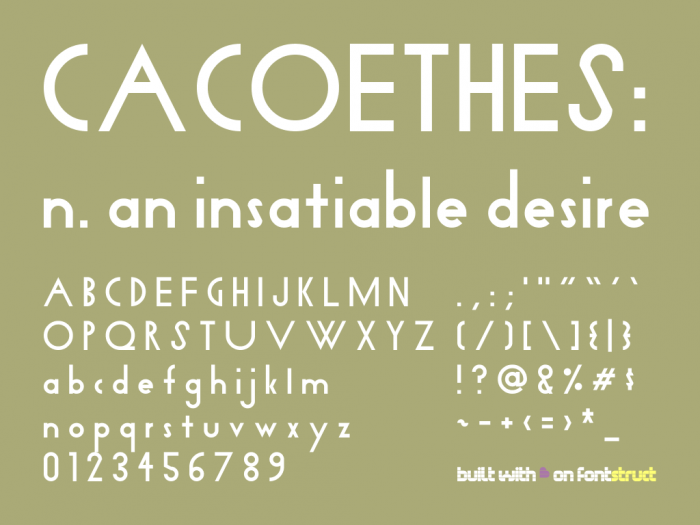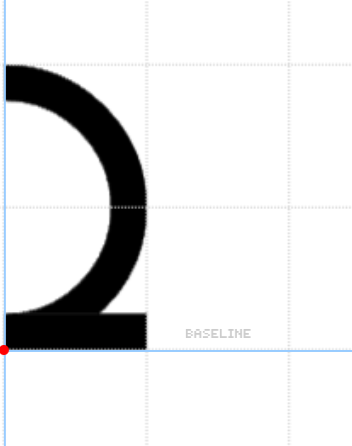
Cacoethes: A font meticulously built to have only true curves and one diagonal angle. Unkerned and under developed. Thoughts, suggestions, and clones welcome!
Did you forget to flip the top brick on the + sign?
That looks like a corruption glitch (brick swapping) to me. Thank you for noticing, consider it fixed.
Ditto but bold